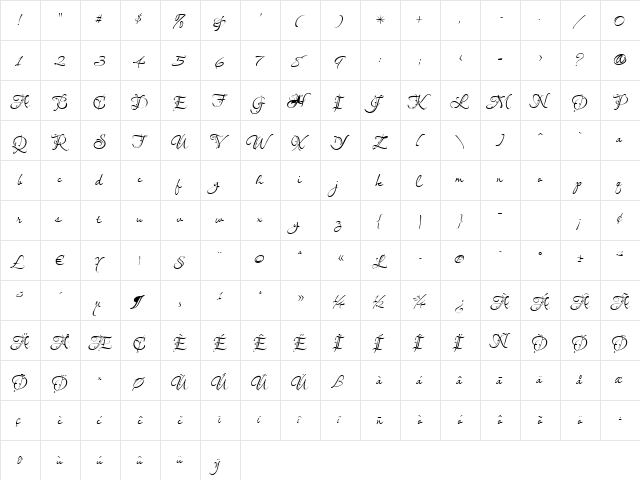
LavishlyYoursROB Regular
Design Context for LavishlyYoursROB Typeface
LavishlyYoursROB is a composed and adaptable typeface that performs quietly and consistently across a wide range of design contexts.